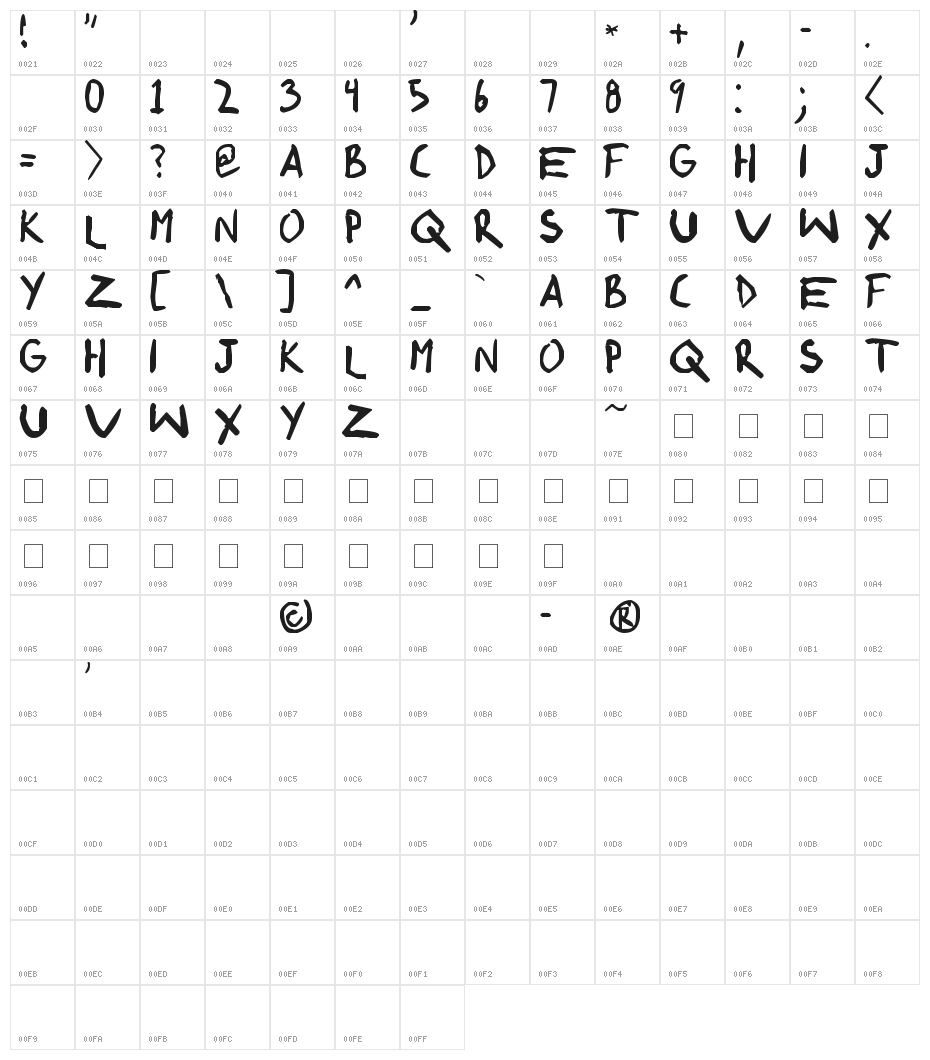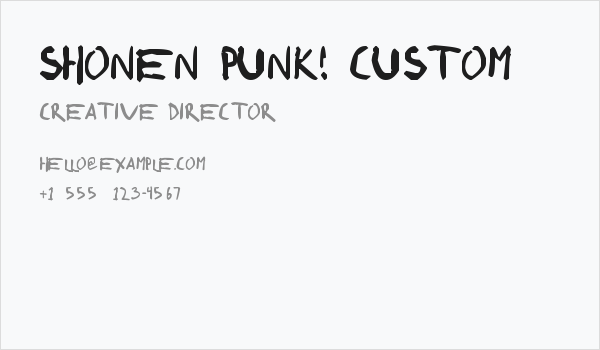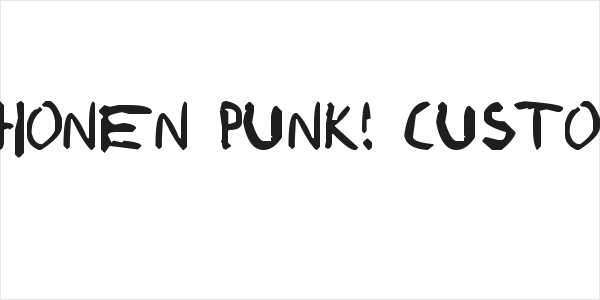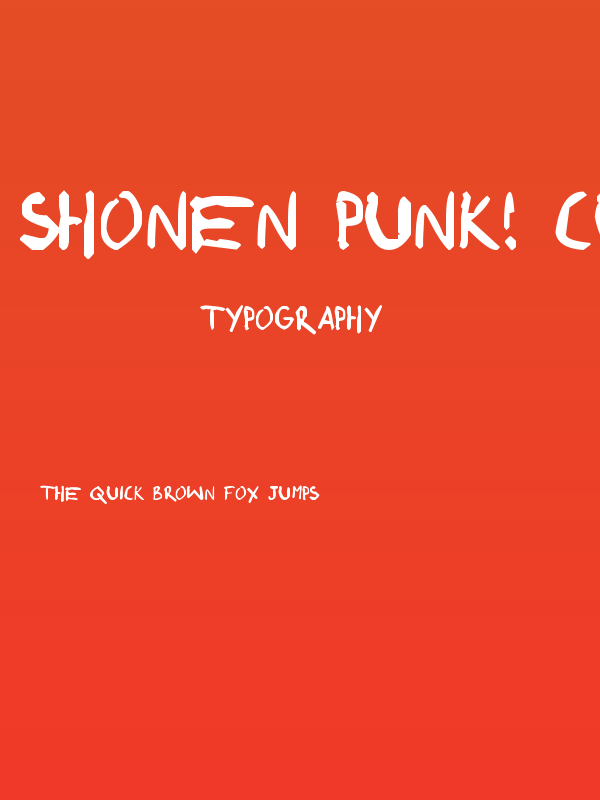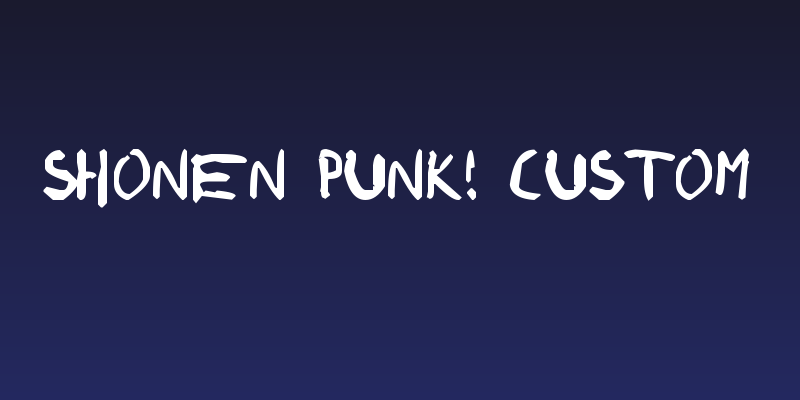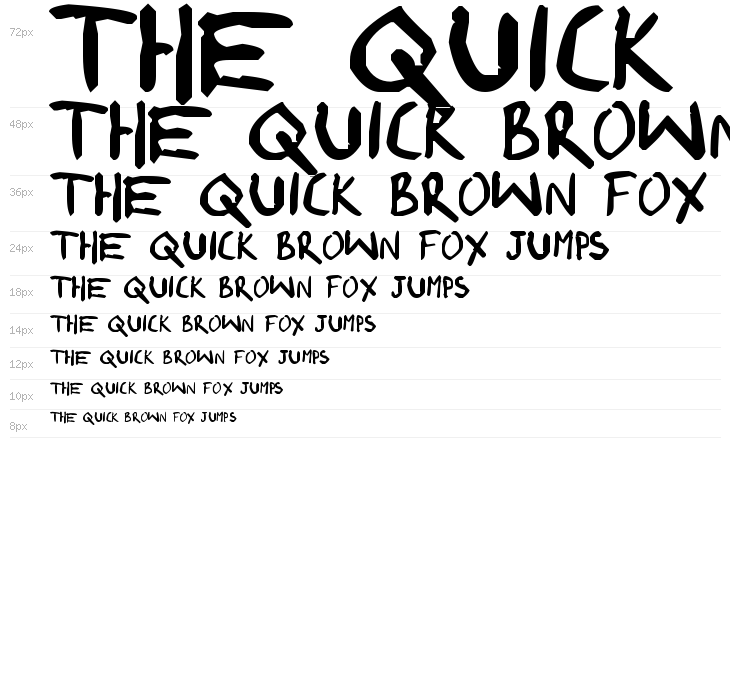
shonen punk! custom Font
shonen punk! custom Description
This font features a bold, edgy style with a hand-drawn appearance, characterized by its uneven lines and dynamic strokes. The uppercase and lowercase letters share a consistent, energetic flair, making them stand out with a rebellious attitude. The numbers and special characters maintain this theme, adding a sense of movement and spontaneity. The overall design is reminiscent of street art or punk aesthetics, with a playful yet assertive presence. Its unique style makes it suitable for projects that require a bold statement or a touch of creativity and individuality.
| Overall Style | Punk, Hand-drawn, Edgy |
| Proposed Projects | Ideal for album covers, posters, streetwear branding, and creative digital content. |